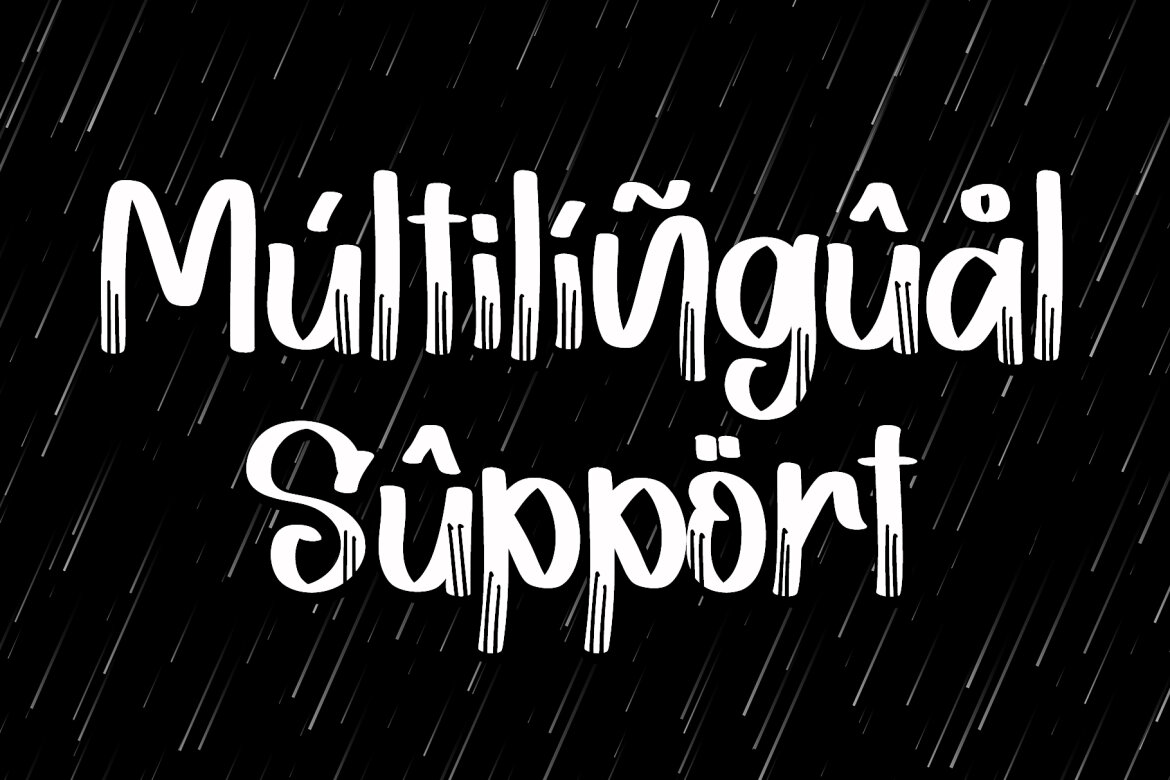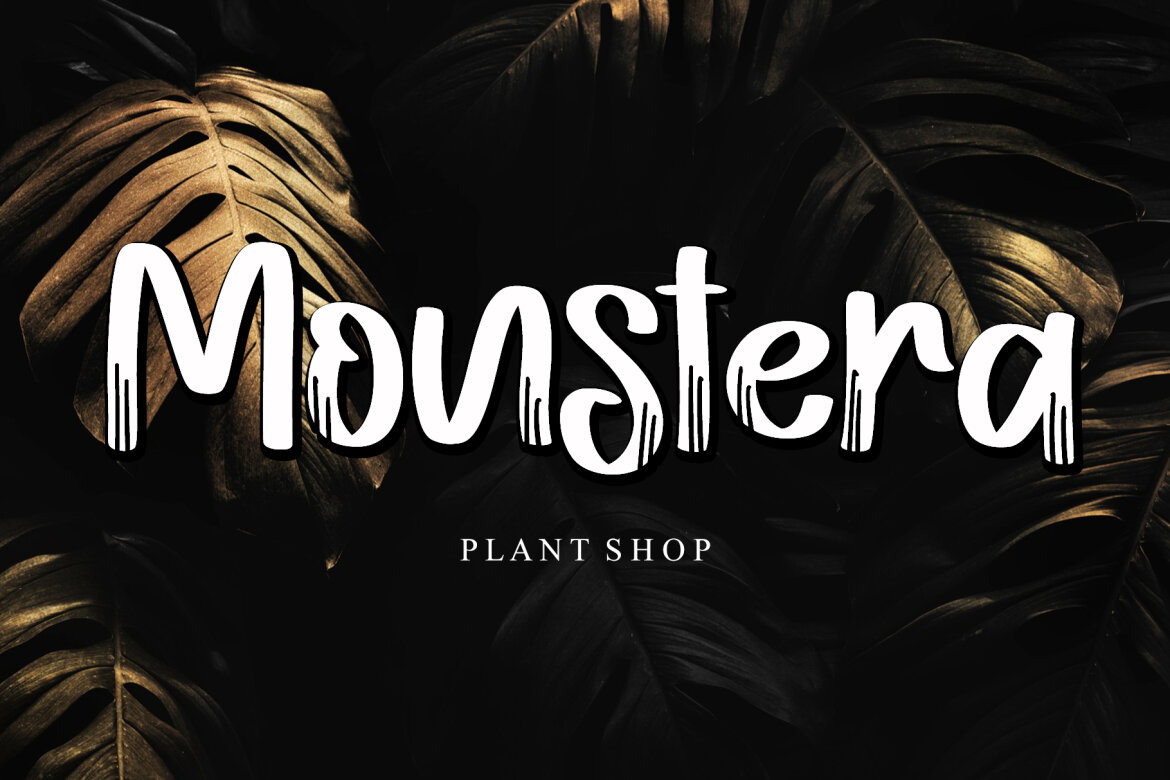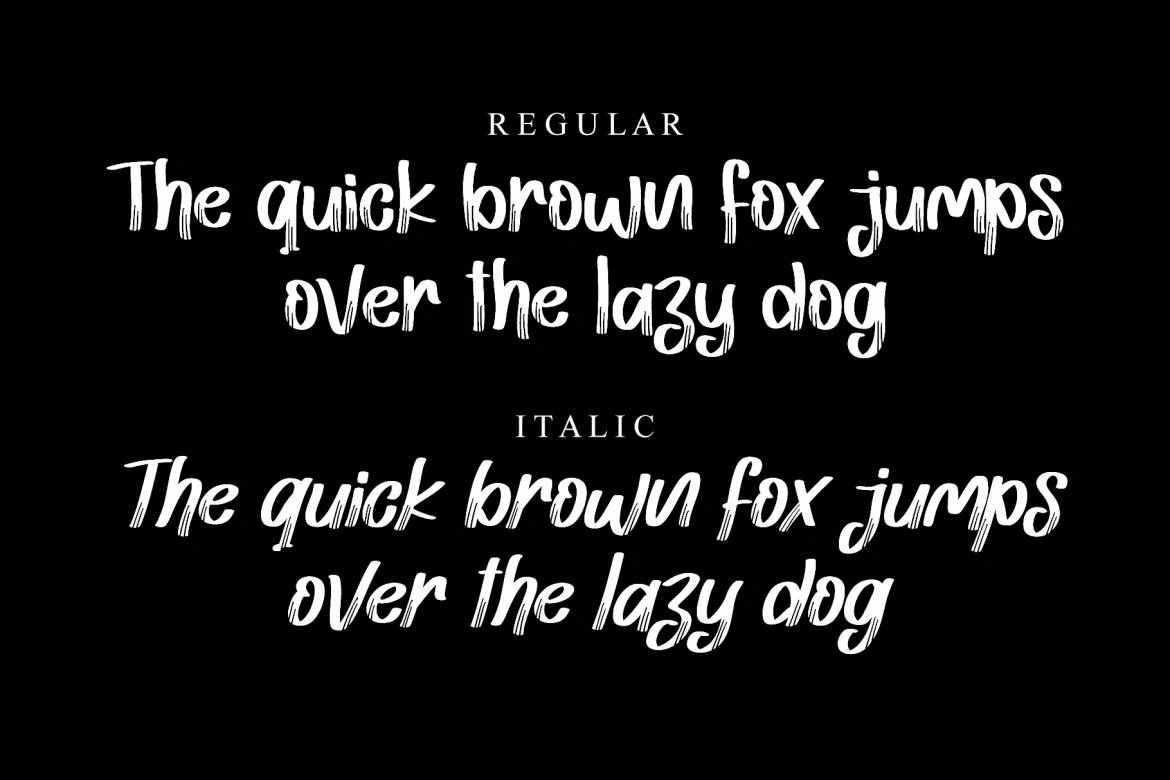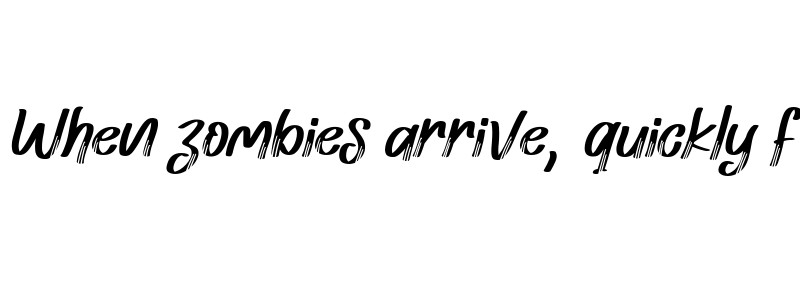
Lemah Teles FREE Font
Lemah Teles is a display font. It is a tough-looking font with a strong brush touch, ready to rock every design you want to create. It is perfect for logos, quotes, posters, clothing, and so much more! Add it to any of your creative projects, and be amazed by the generated outcome!